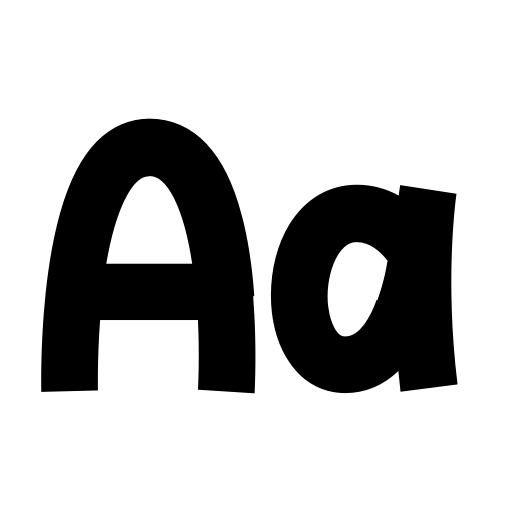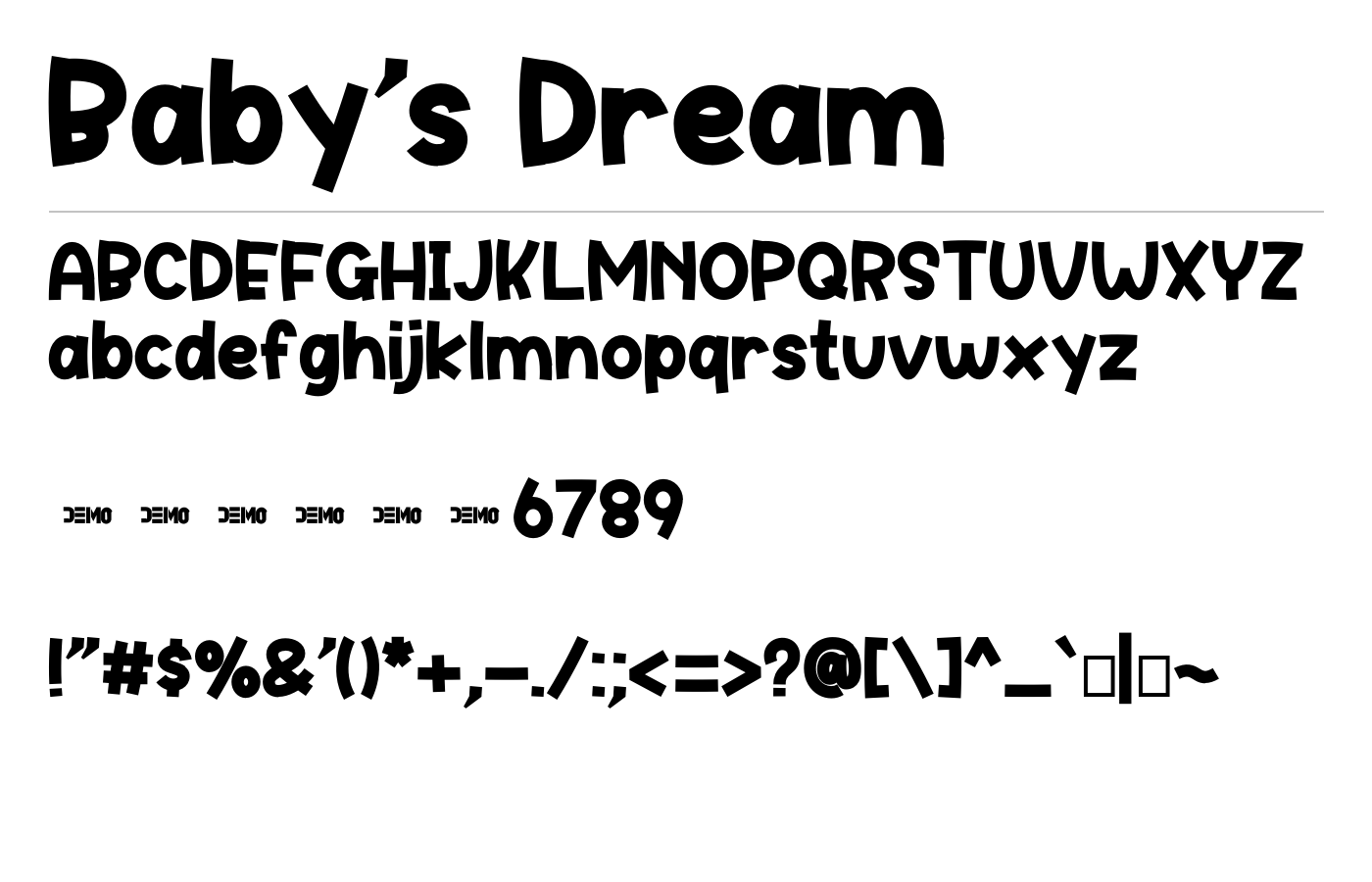
Baby's Dream is a playful, bold sans-serif typeface with a hand-drawn feel that exudes warmth and friendliness. Its chunky, slightly irregular letterforms and moderate x-height make it perfect for informal, fun designs aimed at children or casual themes. This font works well for logos, posters, and packaging where a cheerful, approachable look is desired.
Baby's Dream Font
About Baby's Dream Font
| Font family | Baby's Dream Font |
| Designer | M Pria Admaja |